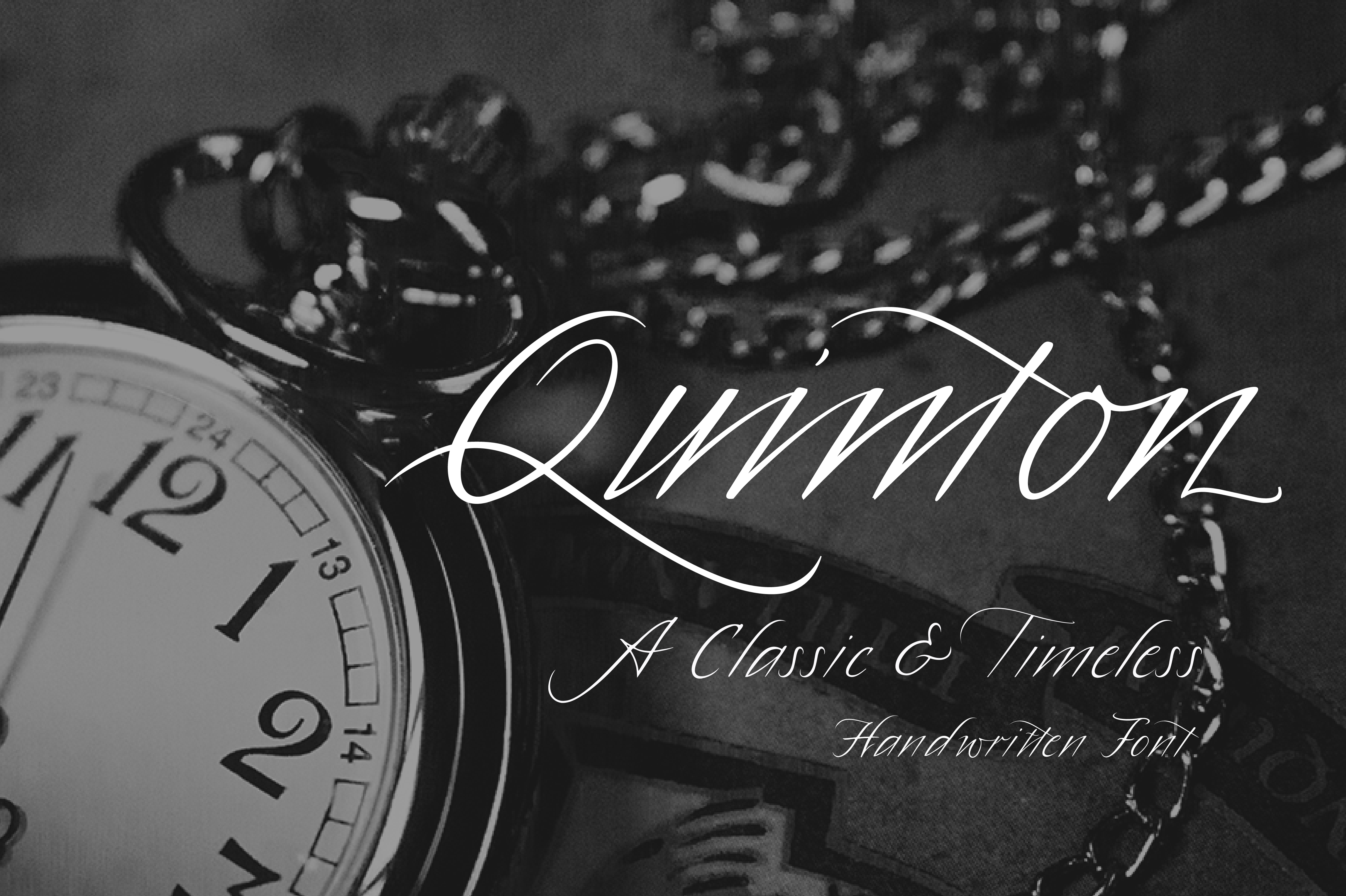
Quinton Script Font
Quinton.Script is a handwritten script font that is perfect for:
- Wedding and Event planning
- Greeting cards, invitations, envelope writings and magazine layouts
- Branding, social media, and more
- Various flourishes available as vector.
Quinton.Script has a variety of unique, coded features to create compelling, handmade outcomes: 34 stylistic alternates, 12 discretionary ligatures and 3 standard ligatures.
Multilingual support is included for Western European languages.